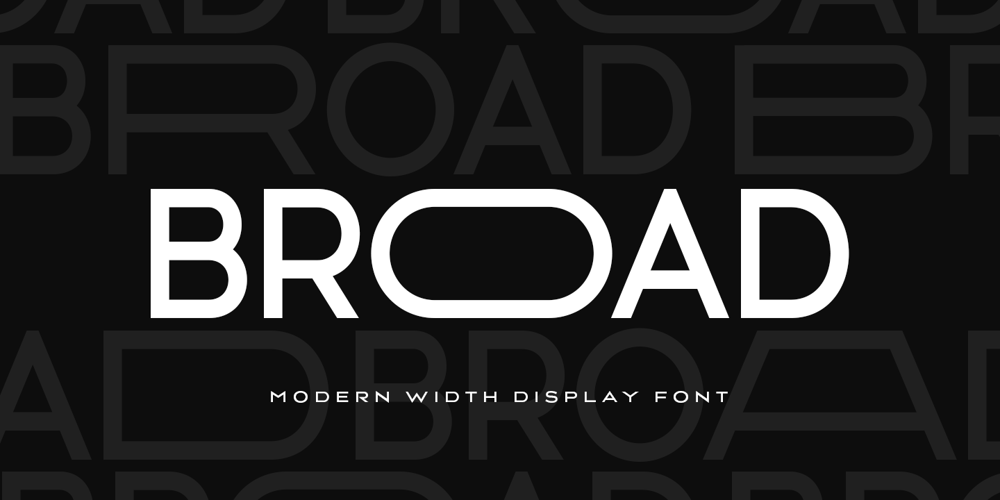
Broad Font Family was designed by Zamroni Hamzah and published by Sensatype Studio. Broad contains 1 styles and family package options. BROAD is a Modern Width or Extended Font Sans Serif perfect for Display NeedsA Display Sans Serif font that we created special for unique branding needs, with extended character that will add an unique of your typography style. It’s so nice to leverage designer or product owner that need solutions to make their design look more unique and standout.BROAD Modern Width Display font ready with: Lowercase and Uppercase characters (as standard or extended character) Numbers and Punctuations Preview as a inspirations that you can do with BROAD font Available for PC and Mac Wish you enjoy our font.